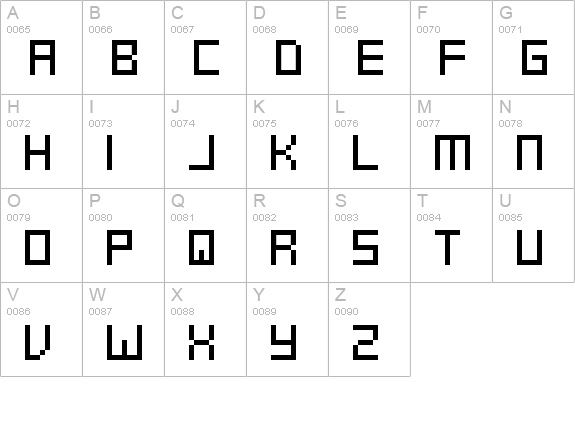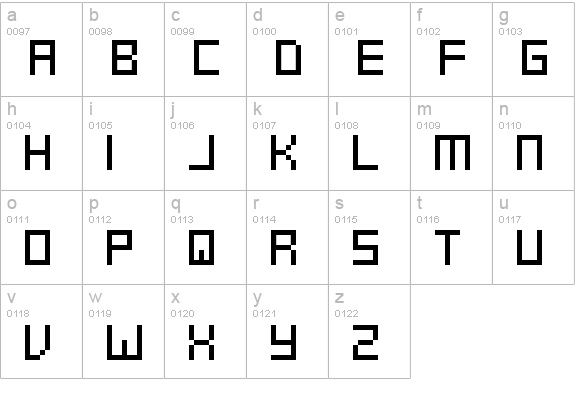
SWF!T_v01 Font Details
SWF!T_v01 font is a stylish and modern typeface that exudes energy and creativity. With its unique design and bold characters, this font is perfect for making a statement in your designs. Whether you're working on a branding project, poster, or website, SWF!T_v01 will add a touch of dynamism and flair. The best part? SWF!T_v01 font is completely free to download at FontsMarket.com. That's right, you can access this fantastic font at no cost, making it a great choice for both personal and commercial projects. So why wait? Elevate your designs with SWF!T_v01 and let your creativity shine!